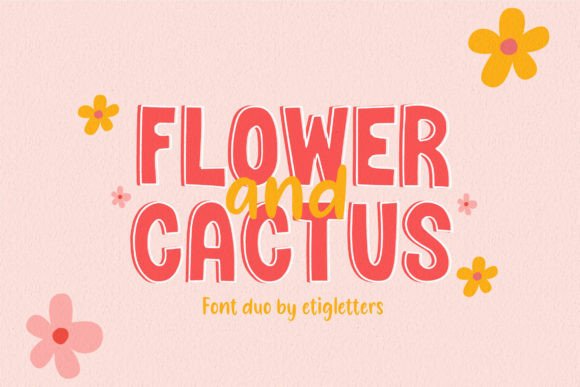
Introducing the captivating and delightful Flower and Cactus Duo Font! This sans serif font combo is expertly crafted by etigletters to infuse your projects with a playful and fun vibe. With its unique charm, Flower and Cactus is the ultimate choice for those seeking a font that stands out from the crowd.
Are you tired of ordinary fonts that lack personality? Look no further! Flower and Cactus will breathe life into your designs, making them irresistible to anyone who lays eyes on them. Whether you're creating stickers, greeting cards, logos, posters, or any other project that craves a fun and happy look, this font duo has got you covered!
Imagine the joy and excitement your audience will experience when they see your creations adorned with Flower and Cactus. Its whimsical curves and stylish characters will instantly captivate their attention, leaving a lasting impression that sets you apart from competitors.
But that's not all - Flower and Cactus Duo Font is also a powerhouse when it comes to functionality. Its versatility allows it to adapt effortlessly to various design themes and purposes. From research posters to marketing materials, this font combo is the perfect companion for professionals looking to make a statement.
With Flower and Cactus, your projects will exude a sense of creativity, playfulness, and professionalism all at once. Its seamless integration with different design software ensures a smooth and hassle-free experience for users of all levels.